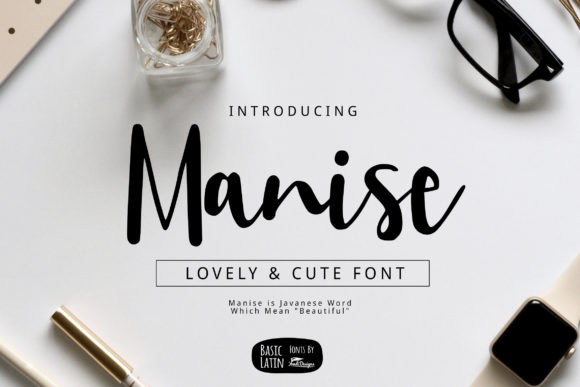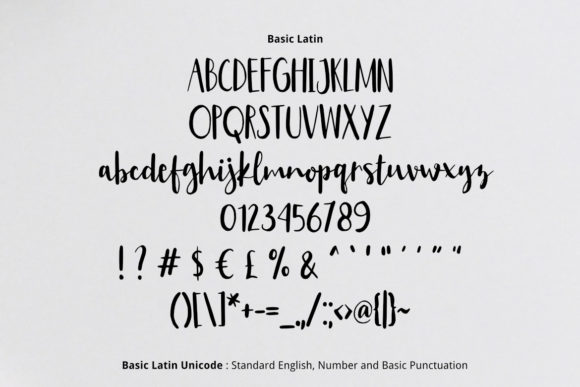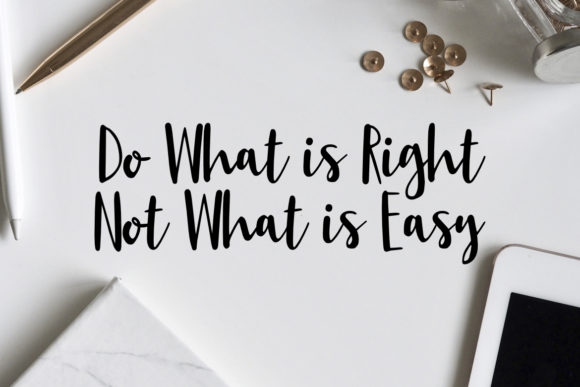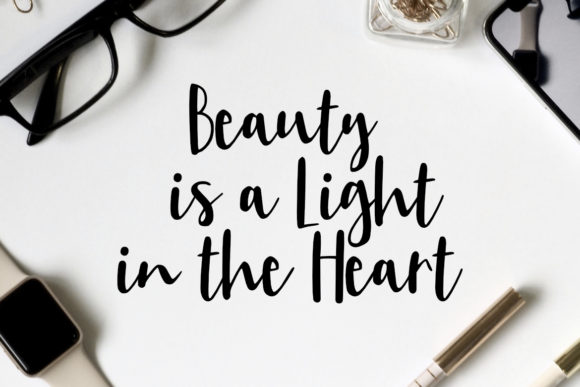
About Manise Font
Manise simplifies elegance into one truly outstanding handwritten font. This font will look outstanding in any context, whether itβs being used on busy backgrounds or as a standalone headline!